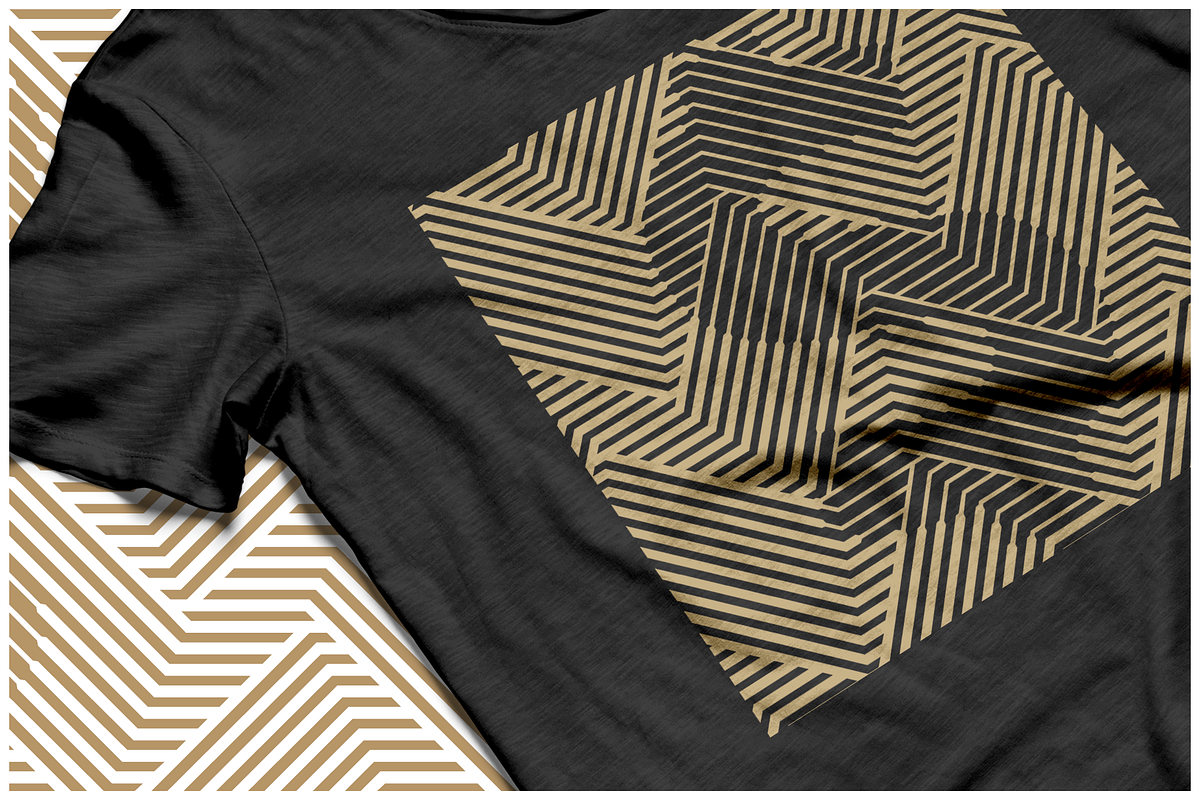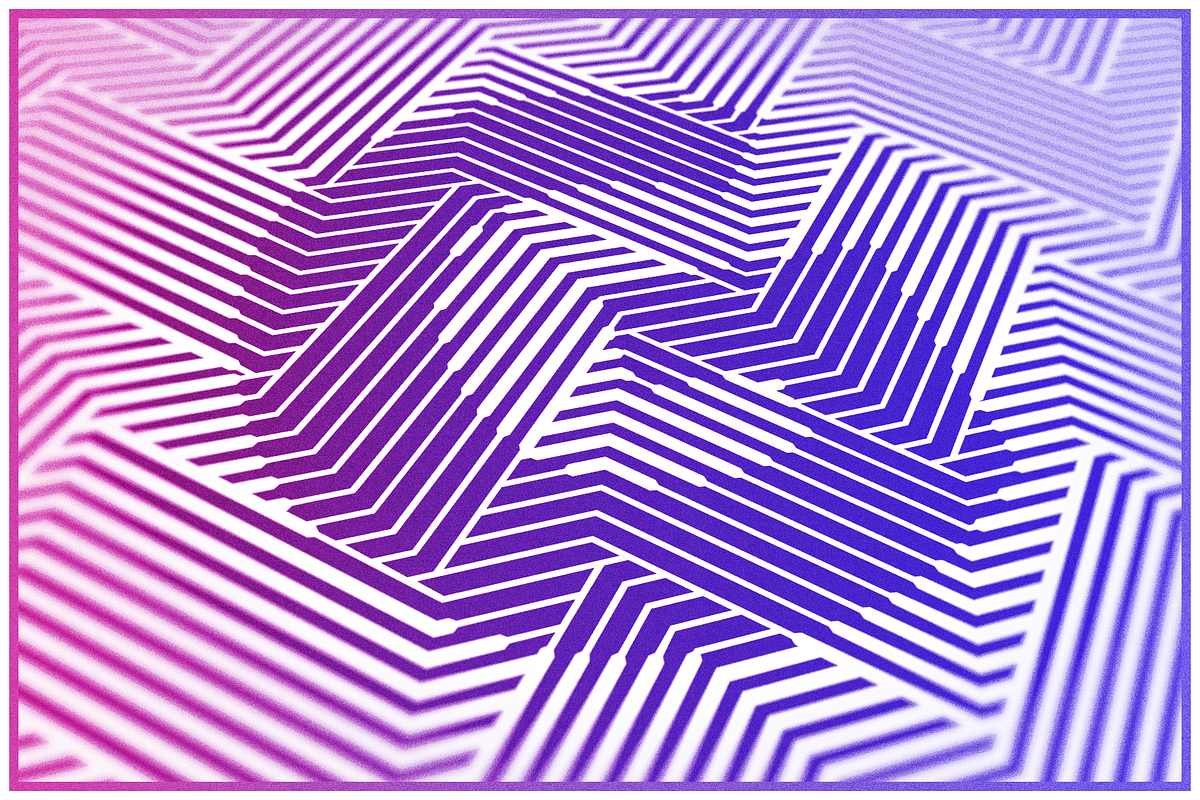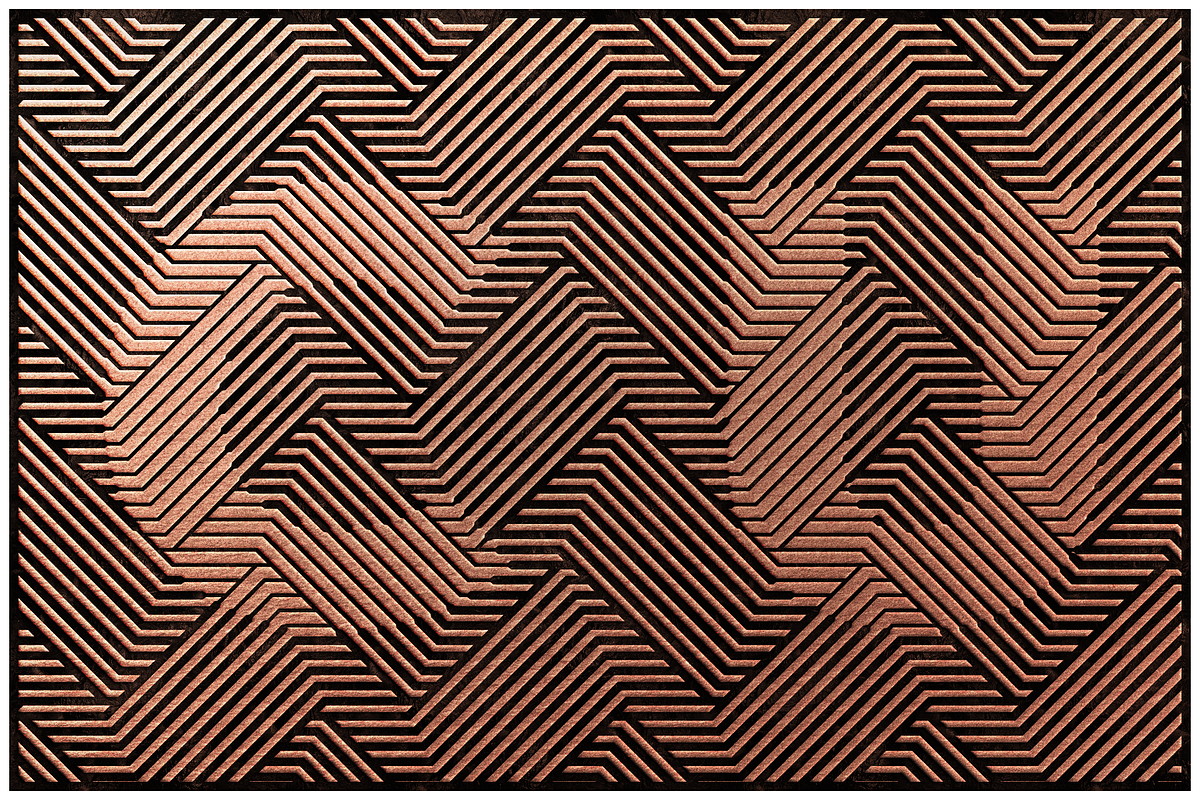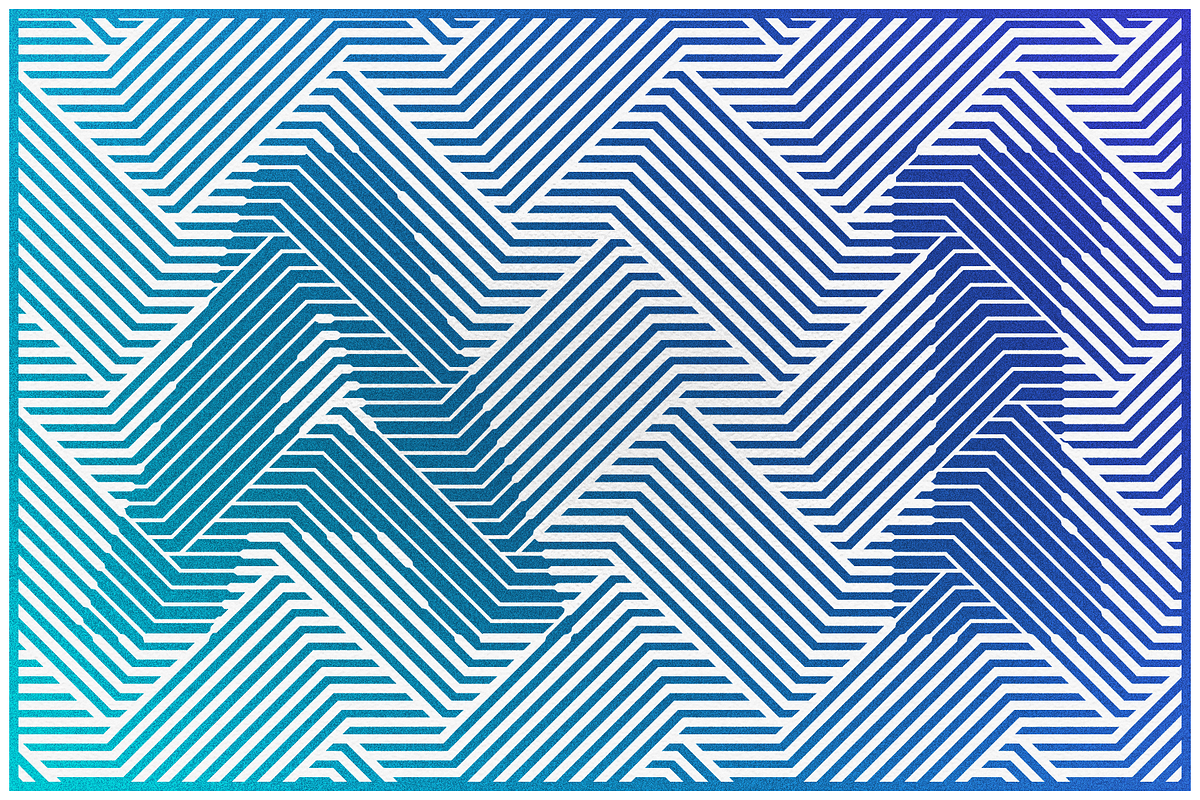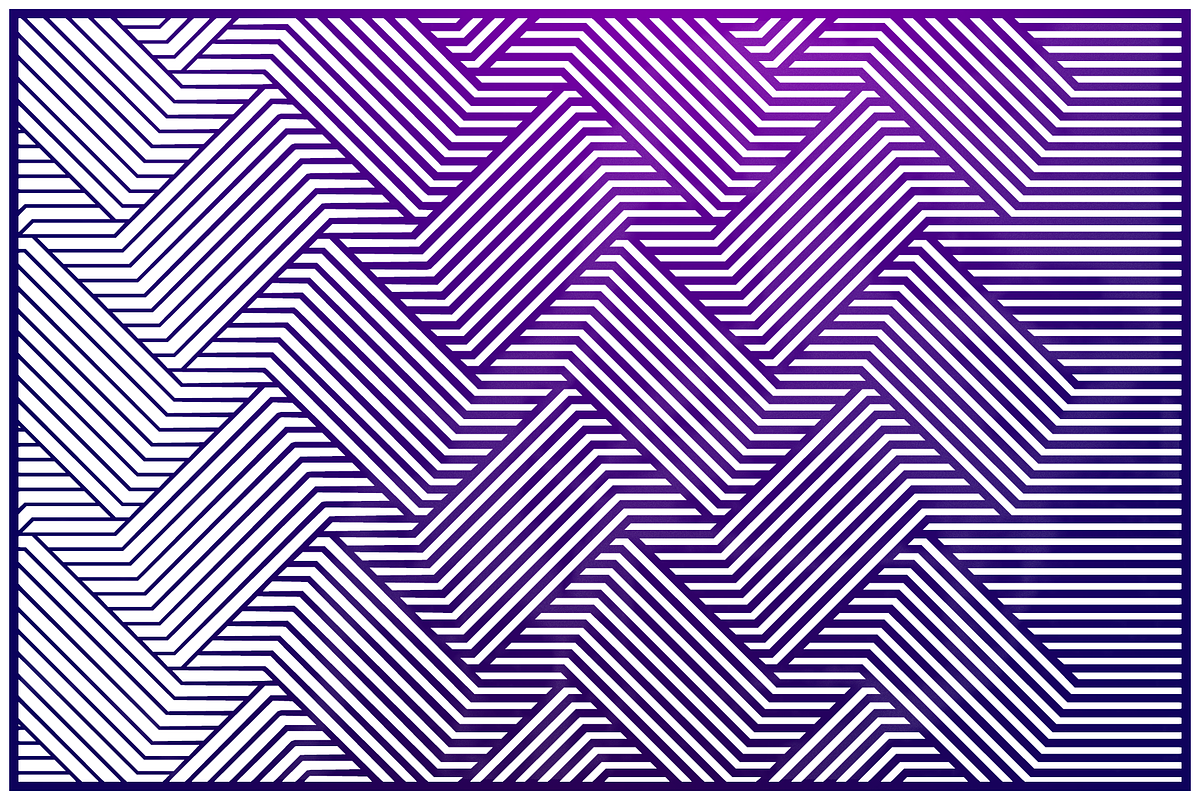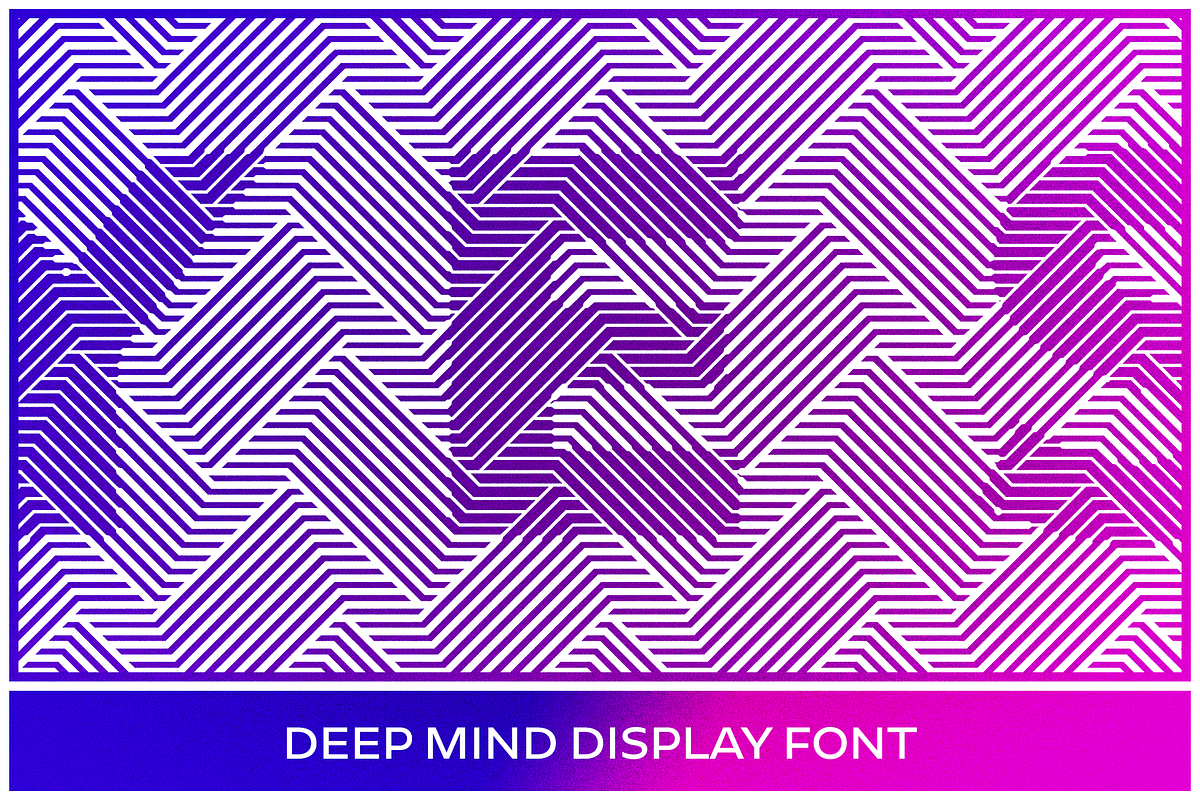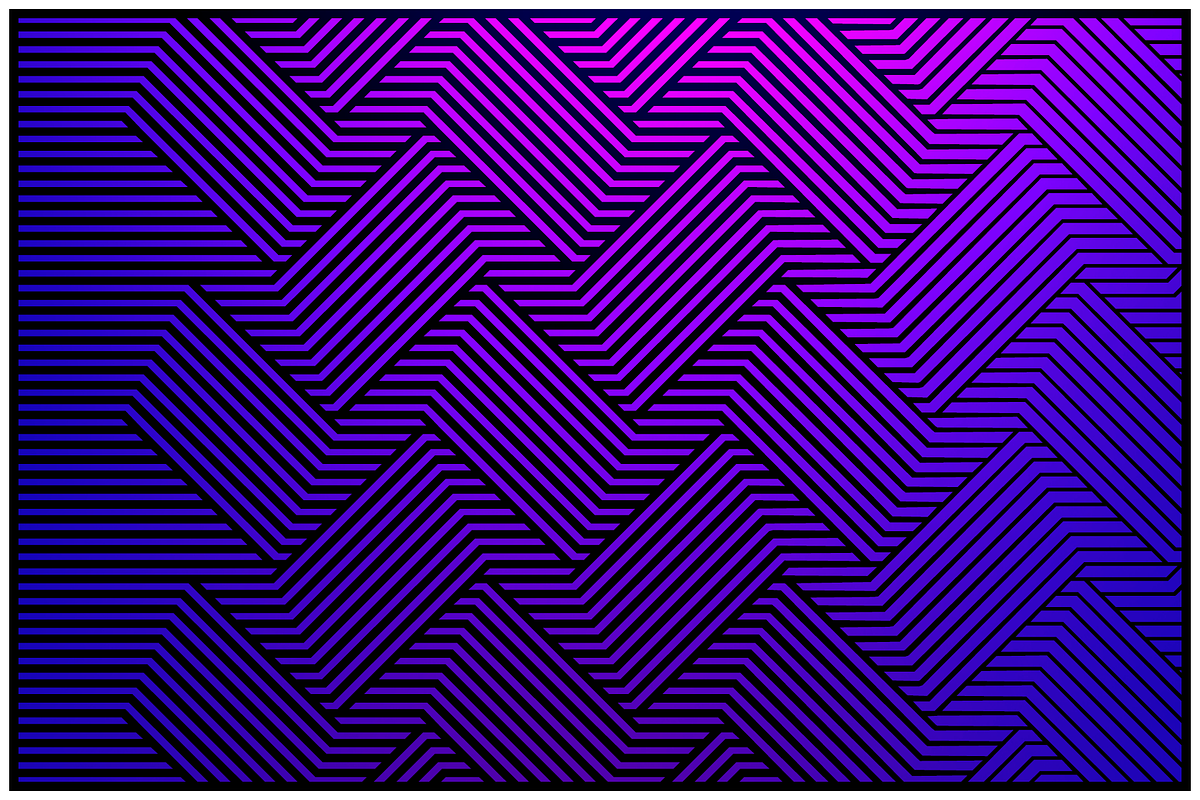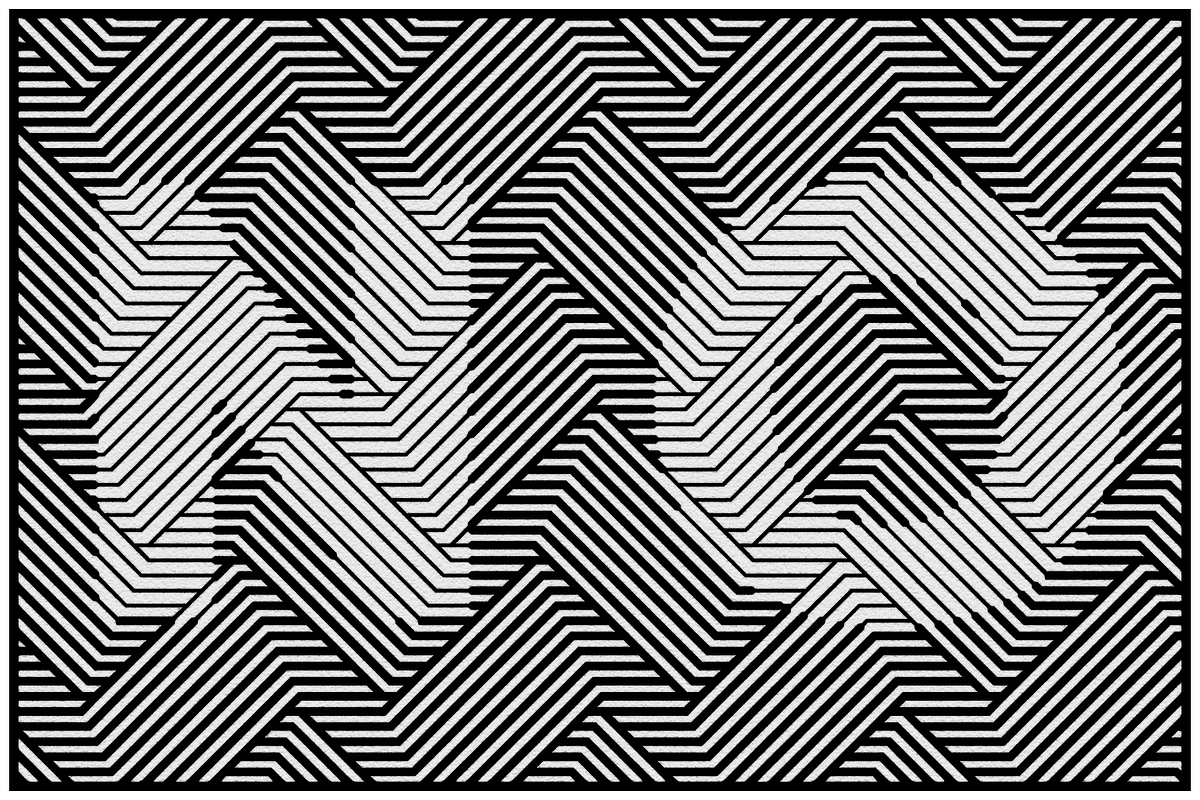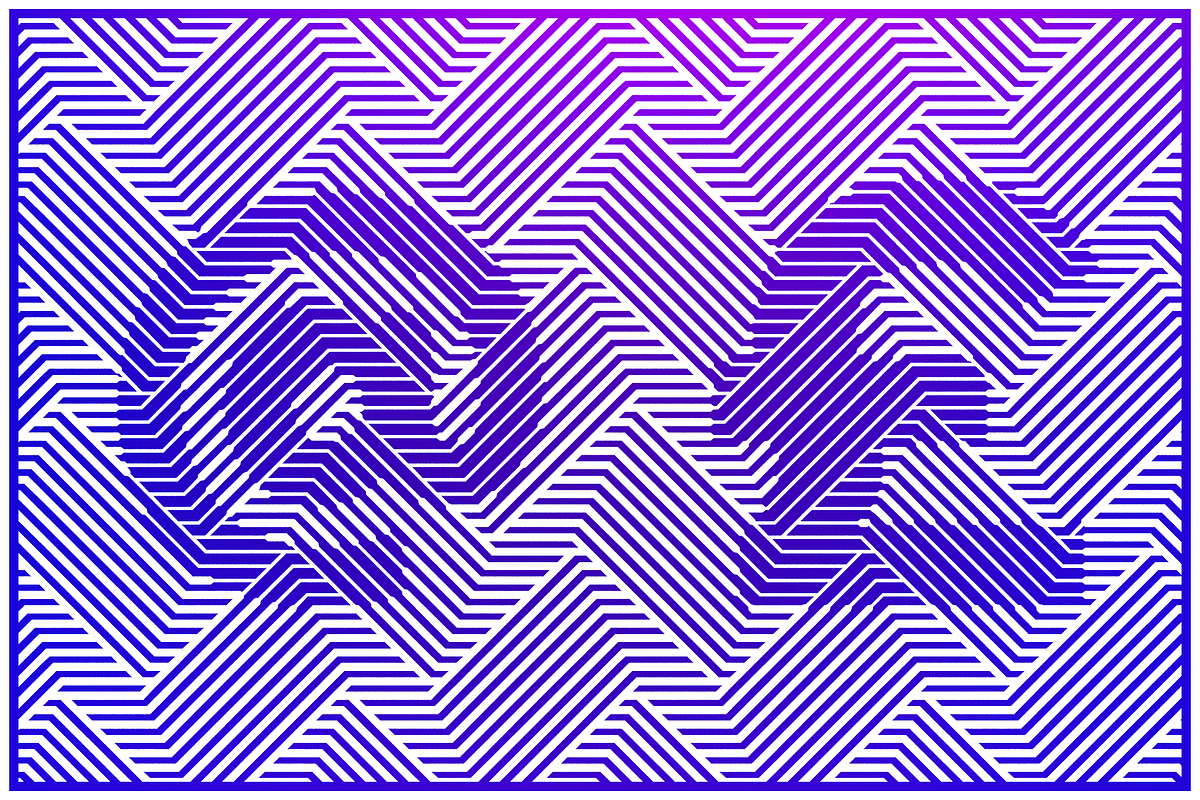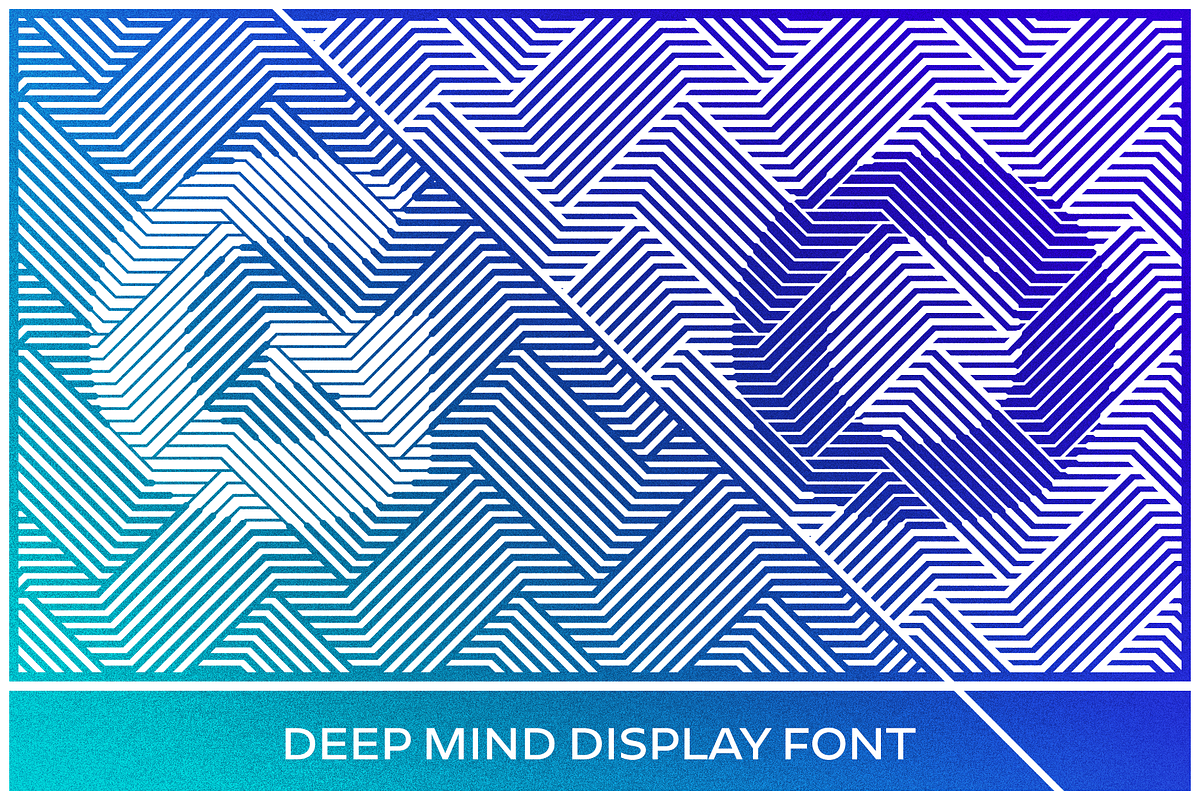
Deep Mind Font (Family Pack)
Deep Mind Font (Family Pack) includes the following styles: • Normal • Negative
Deep Mind Font is a special appearance display type. You can easily create text, frames, and seamless patterns embedded in illusory type optical patterns in a variety of layouts. In addition to repeating and intertwining lines, the unique optical effect is provided by the use of variable line widths.
Deep Mind basically uses two line widths. The base style pattern appears with a thicker line thickness. The other style is the opposite. The characters embedded in the pattern are rendered as a secondary image using a thinner thickness, which is provided by the use of a variable line width.
This gives it a modern and unique look. All characters are the same width and height for easy and simpler use. The glyphs connect perfectly on both sides, also below and above each other. This guarantees the continuity and smoothness of the pattern.
The basic pattern can also be selected and used with the thinner line thickness for variability and completeness of the optical illusion (by typing "z"). There are also tiles that provide a smooth transition from thin to thick or from thick to thin line thickness. Of course, in all four directions. You can access these tiles by typing the characters: “lmno and p".
The negative version provides additional opportunities for versatile use.
• Type the same letter several times and the pattern will repeat. Type in: “zzzzzz”.
• You can create a frame using the closing elements as follows. Type in: “abcdefgh and ijk”
• The font has a separate option for placing your own logo, in square and circular forms. Type in: “rs and tuvw and xy"
The font contains 119 glyphs, which include uppercase, numbers, punctuation, symbols, patterns, frames, closing elements, and tiles that provide a continuous transition between different line widths. Deep Mind font is ideal for any use that has an innovative and modernist purpose, adaptable to display decorations, running borders or repeating patterns.
It can be used in larger sizes as display fonts, as headers, and for attention-grabbing use. Small sizes are ideal for use in Security Printers as microtext and background printing system.